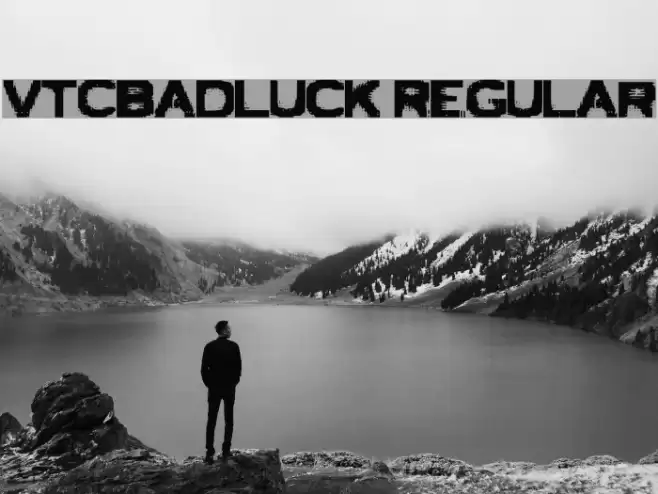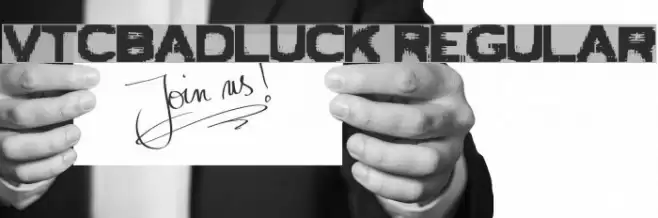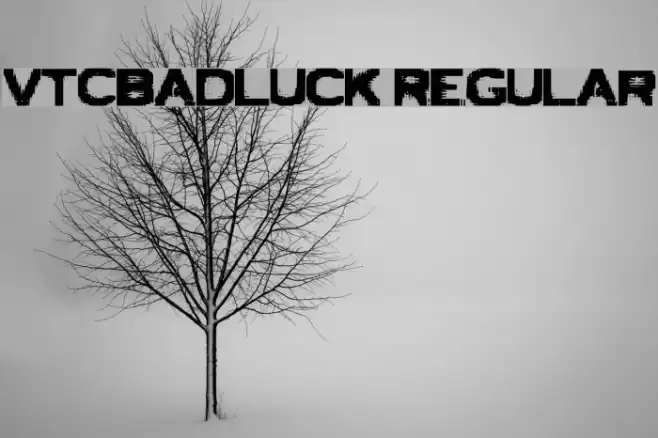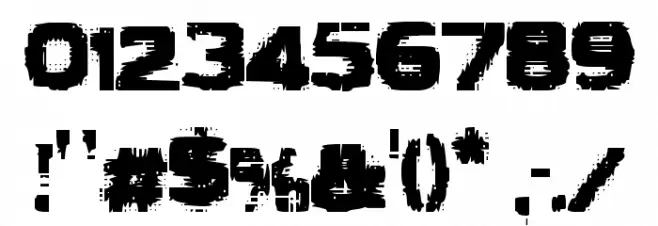
VTCBadLuck Regular Font
This font features a bold and distressed style, with a grunge aesthetic that gives it a rugged and worn appearance. The characters are blocky and robust, with irregular edges and a textured look that suggests a sense of decay or erosion. This design choice adds a dynamic and edgy feel, making it suitable for projects that require a bold statement. The uppercase and lowercase letters maintain a consistent weight, while the numbers and special characters follow the same distressed pattern, ensuring uniformity across all elements.
A bold, distressed font with a grunge aesthetic and rugged appearance from Uncategorized fonts.
- Proposed Projects: Ideal for music album covers, posters, urban-themed designs, and any project needing a gritty, bold statement.
- Overall Style: Grunge, Edgy, Urban
- Use Case: Headlines, Posters, Album Covers